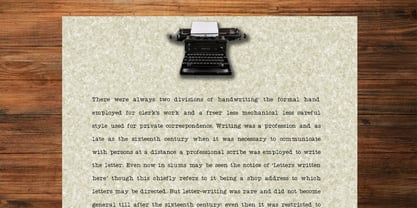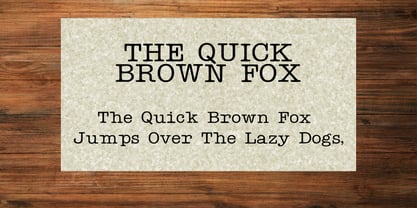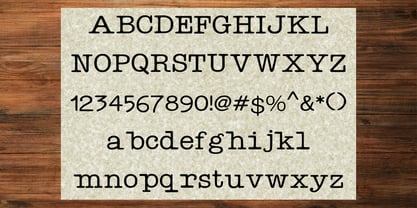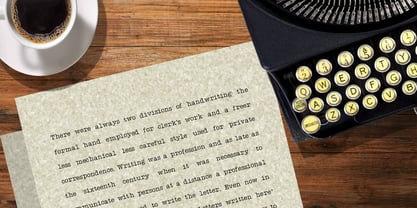
Mesintulis
by Beewest Studio
The Mesintulis Font Family was designed by bsmbang wisudyantoro and published by Beewest Studio. Mesintulis contains 1 styles.
Bring back the charm of vintage correspondence with "
Mesintulis, a meticulously crafted typewriter-style font that captures the nostalgic feel of classic mechanical typing.
With its slightly imperfect letterforms, authentic ink-like texture, and subtle irregularities, Mesintulis delivers the warm, analog character that modern sans-serifs can’t match. Perfect for:
Retro-inspired branding & logos
Letters, documents, and invitations with a vintage touch
Posters, book covers, and zines
Digital scrapbooks & journaling projects
Whether you’re designing for print or digital, Mesintulis adds an unmistakable personality — equal parts timeless and creative. Its versatile set of uppercase, lowercase, numbers, and punctuation ensures your work feels both authentic and functional.
Step into the past without leaving the present — let Mesintulis type your story.